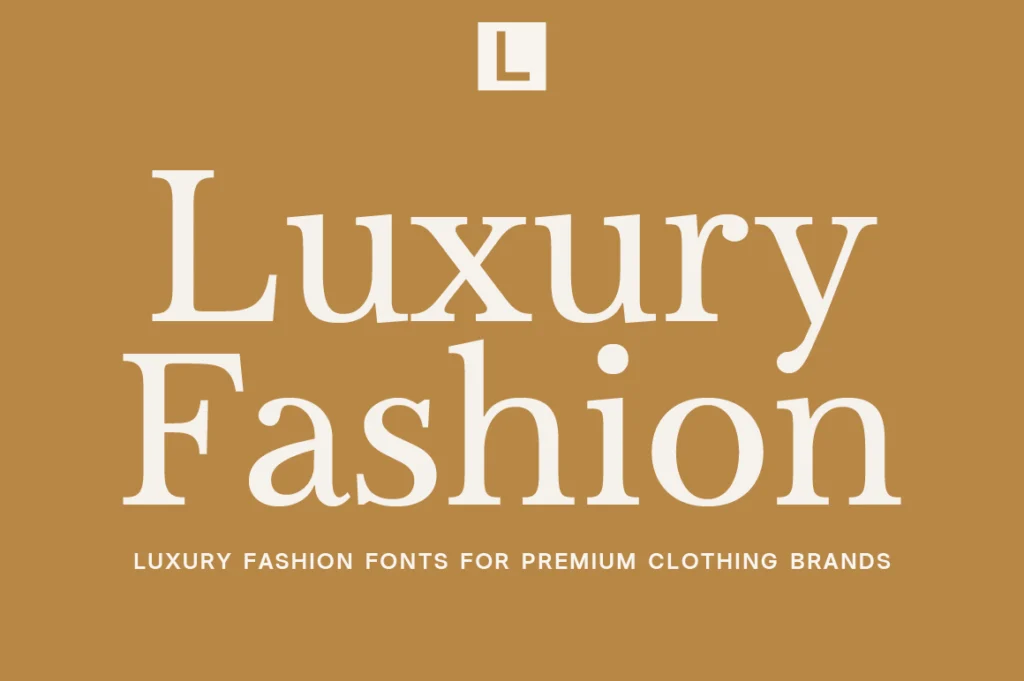
How to Choose Luxury Fashion Fonts for Premium Clothing Brands
Luxury fashion is more than beautifully tailored garments or premium fabrics. Before customers experience the quality of a product, they encounter the brand itself. One of the most influential elements in creating that first impression is typography.
From logo design and clothing labels to websites, shopping bags, and advertising campaigns, typography shapes how customers perceive a fashion brand. The right luxury fashion font communicates elegance, confidence, craftsmanship, and exclusivity before a single product is touched.
Whether you’re launching a boutique clothing label or refreshing an established premium fashion brand, choosing the right typography is one of the smartest investments you can make for your visual identity.
Why Typography Matters in Luxury Fashion
Fashion sells aspiration.
Customers don’t simply purchase clothing—they invest in identity, lifestyle, and emotion. Typography becomes the visual voice that supports those values.
Elegant typography creates an immediate impression of quality, while poorly chosen fonts can make even premium products appear inexpensive.
Luxury fashion brands understand that every detail matters, and typography is one of the few branding elements customers repeatedly encounter across every touchpoint.
Font Recommendation
If you’re looking for a refined serif that blends timeless elegance with contemporary styling, Montegar is an excellent choice. Designed for editorial branding, luxury logos, and premium visual identities, it delivers sophisticated character without sacrificing readability.
The Characteristics of Luxury Fashion Fonts
Luxury fashion typography often appears effortless, but achieving that refined appearance requires careful design.
The best luxury fashion fonts typically feature:
• Elegant proportions
• High-contrast strokes
• Refined serif details
• Balanced spacing
• Excellent readability
• Timeless personality
Rather than following temporary trends, premium brands invest in typography that remains relevant for years.
Font Recommendation
For brands seeking a modern editorial look, Lucentia combines graceful proportions with luxurious serif details. Its versatility makes it suitable for fashion branding, magazine layouts, premium packaging, and elegant marketing campaigns.
Editorial Typography Creates Premium Perception
Luxury fashion has always shared a close relationship with editorial design.
Magazine-inspired layouts, dramatic headlines, generous white space, and sophisticated typography help create a premium visual experience that feels aspirational rather than commercial.
This editorial approach works beautifully for:
• Fashion campaigns
• Seasonal collections
• Lookbooks
• Designer portfolios
• Luxury websites
• Social media branding
Font Recommendation
Fonts like Vescura and Becaure are ideal for editorial-inspired branding. Their expressive serif details create eye-catching headlines while maintaining the elegance expected from premium fashion brands.
Consistency Across Every Brand Touchpoint
Typography should never exist only in a logo.
Luxury brands build recognition by using consistent typography across:
• Logos
• Clothing labels
• Packaging
• Shopping bags
• Websites
• Email campaigns
• Printed lookbooks
• Social media graphics
When typography remains consistent, customers naturally associate that visual language with your brand.
Font Recommendation
For timeless luxury branding, Vogera and Afteris Moghu provide sophisticated serif styles that perform beautifully across both digital and print applications, helping create a cohesive identity throughout every customer interaction.
Choosing the Right Luxury Fashion Font
Before selecting a typeface, think beyond aesthetics.
Ask yourself:
• Does this font reflect my brand personality?
• Will it still feel premium five years from now?
• Can it work equally well in print and digital?
• Is it readable at different sizes?
• Does it support multilingual branding?
Timeless typography creates stronger brand recognition and provides greater long-term value than chasing design trends.
Conclusion
Typography is one of the strongest foundations of luxury fashion branding. Long before customers experience a garment’s craftsmanship, they begin forming opinions through its visual identity.
Choosing a well-crafted luxury fashion font helps communicate elegance, professionalism, and exclusivity across every brand touchpoint. Whether you’re creating a boutique clothing label or expanding an established premium fashion house, investing in timeless typography will strengthen your brand for years to come.
If you’re exploring premium fonts for luxury branding, editorial design, or fashion packaging, Lettertype Studio offers carefully crafted typefaces to help brands create sophisticated, memorable visual identities.
Featured Fonts from Lettertype Studio
Montegar — Elegant editorial serif for premium branding.
Lucentia — Sophisticated modern serif for luxury visual identity.
Vescura — High-contrast serif perfect for fashion editorials.
Vogera — Timeless serif for boutique and luxury brands.
Afteris Moghu — Refined display serif for premium logos and campaigns.